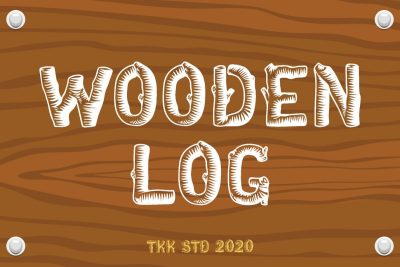
Funny Font Wooden Log is the perfect choice for adding a rustic, nature-inspired look with a fun twist. Its woodgrain texture and log-like shapes create an earthy, outdoorsy feel that instantly captures attention. Whether your project involves camping, nature, or childrenโs media, Wooden Log brings a warm, adventurous vibe that appeals to all ages. This font is versatile enough to adapt to a variety of themes while maintaining its unique, organic charm.
The fontโs distinctive design makes it ideal for projects that require a handcrafted look. The chunky letters give text a strong presence, while the wood texture adds depth and personality. Each letter seems to have been carved from logs, evoking the feel of a cozy forest setting. From posters to product packaging, Funny Font Wooden Log captures the charm of the great outdoors in a fun, inviting way. Itโs perfect for brands wanting to stand out with a playful, yet rustic vibe.
Why Funny Font Wooden Log Works for Nature and Kids-Themed Projects
Wooden Log shines in projects that need a natural, earthy touch with a hint of playfulness. Its log-inspired design adds authenticity and a handcrafted feel, making it an excellent choice for brands or events with an outdoor or eco-friendly focus. This font fits well with outdoor adventure brands, camping gear labels, storybooks, or environmental campaigns. It also pairs beautifully with illustrations of trees, animals, or nature scenes, enhancing any forest-inspired theme and bringing it to life.
In addition, Wooden Log works seamlessly in both print and digital formats. Its bold, rounded shapes ensure readability from a distance, which is great for signage, banners, and ads. The thick lines and rugged texture add visual impact to social media posts, website headers, and even promotional merchandise. Its adaptability makes it suitable for a wide range of projects while keeping its distinct, organic style that sets it apart.
If you want to bring a touch of the wild into your designs, Wooden Log is an excellent choice. It combines the strength and warmth of natural wood with a playful edge. This creates a friendly, down-to-earth aesthetic thatโs perfect for fun, nature-themed projects and resonates with both adults and children alike.